Applique letters and fonts are a type of machine embroidery design that is commonly used for creating personalized and decorative text on fabric. These designs typically consist of individual fabric pieces that are layered to form letters or numbers, allowing for a 3D effect.
Applique letters and fonts come in different sizes and styles, with some designed specifically for larger projects like quilts or wall hangings. While others are more suited for smaller items like clothing or accessories. These applique embroidery designs can be easily customized to match the style and theme of the project. Making them a popular choice for adding a unique and personal touch to any fabric-based creation.
Applique letters and fonts offer a fun and creative way to personalize and customize any project. They can be used in a variety of crafts, from quilting and embroidery to scrapbooking and paper crafts. With over 20 different types of applique letters and fonts to choose from, the possibilities are endless. Whether you prefer a classic serif font, a whimsical script, or a bold and modern design. There's sure to be a style that suits your creative vision.
From traditional machine applique to hand-sewn applique. The versatility of applique letters and fonts makes it easy to add a unique and personalized touch to any project. Explore the world of applique letters and fonts and let your imagination run wild.
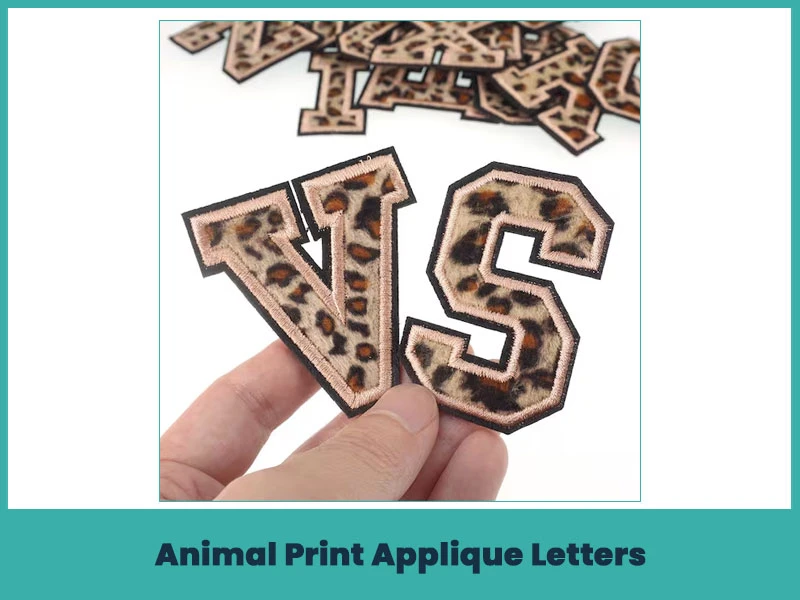
Create a wild and stylish statement with animal print appliqué letters. Leopard, zebra, and snake prints work well to infuse a touch of the exotic into your fabric creations. These bold and eye-catching letters are perfect for adding a touch of the jungle to quilts, bags, or clothing items. Experiment with different textures and colors to achieve a striking result.
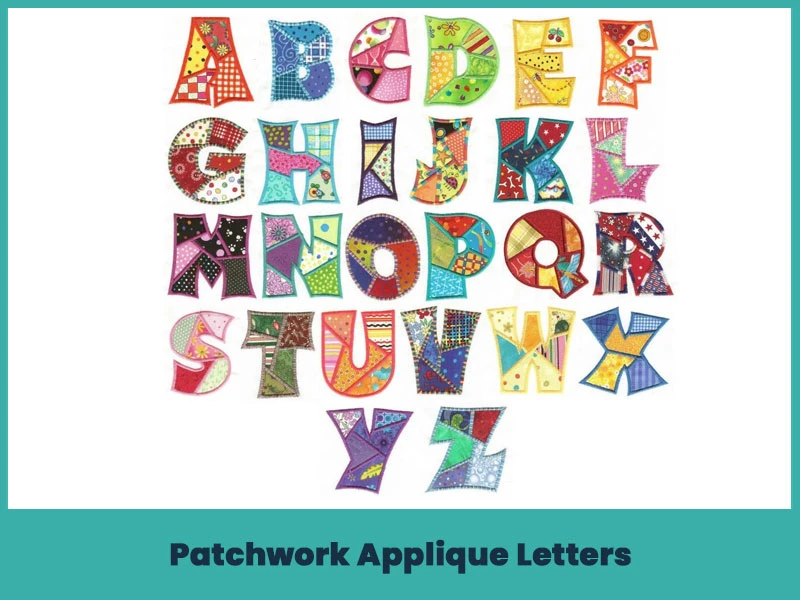
Patchwork appliqué letters offer a charming and homespun aesthetic. Use a variety of fabrics in complementary colors and patterns to piece together each letter. This technique is particularly effective for creating a cozy, quilt-like appearance on cushions, blankets, or wall hangings. The unique combination of embroidery fabrics adds visual interest and a touch of nostalgia to your projects.
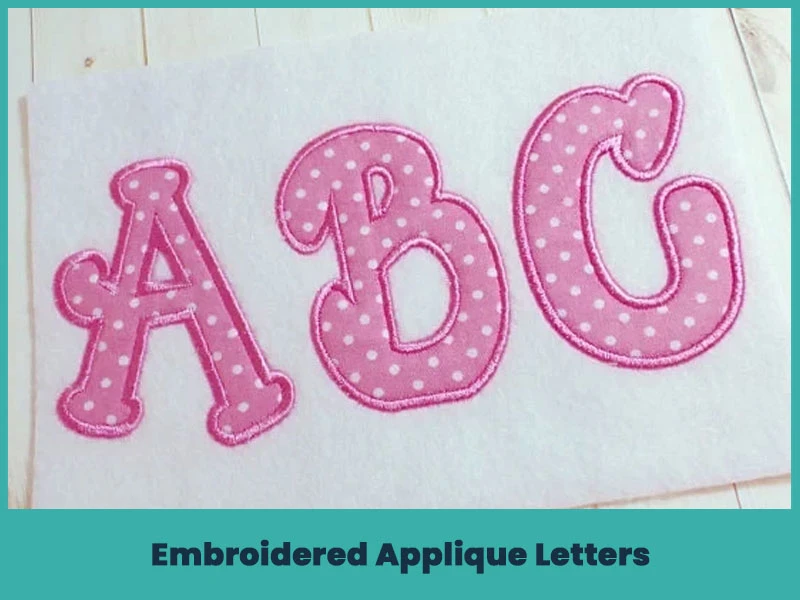
Enhance your appliqué letters with intricate embroidery stitches. Outline the edges of the letters or fill them in with decorative patterns. Embroidered appliqué letters add a delicate and artisanal touch to your projects. Making them stand out with a high level of craftsmanship. Experiment with different thread colors and stitch types to achieve the desired effect.
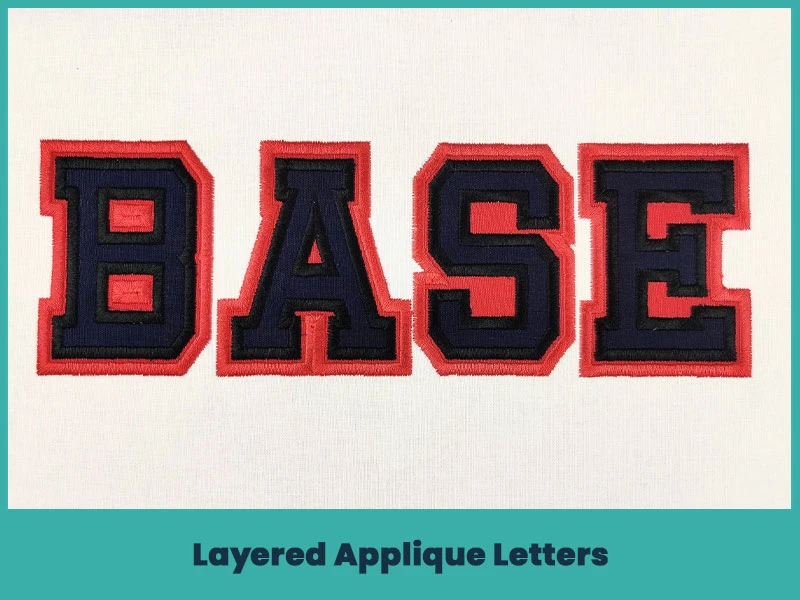
Give your applique letters depth and dimension by layering different fabrics or materials. Use contrasting colors or textures to create a visually interesting effect. This technique works well for both simple and complex fonts. Allowing you to experiment with various combinations to achieve a layered and three-dimensional appearance. The result is a dynamic and tactile design that captures attention.
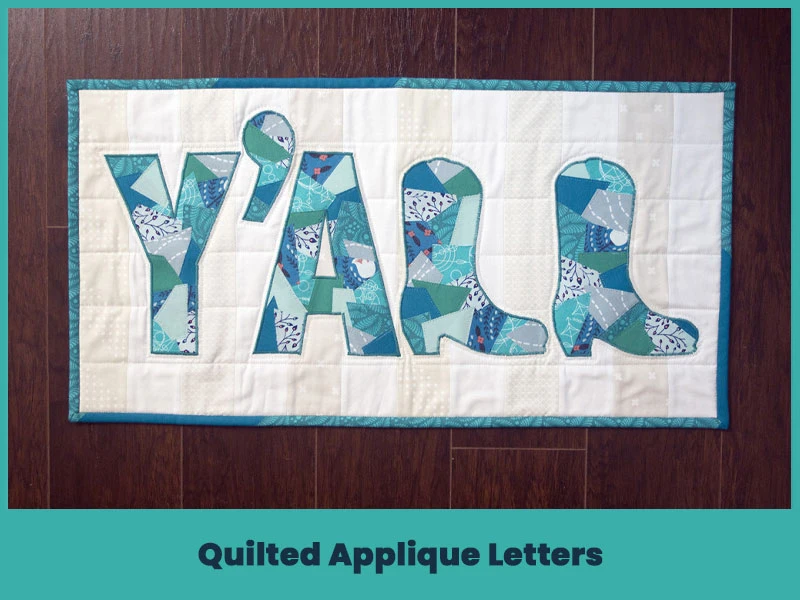
Imitate the look of quilting within your appliqué letters by adding stitched lines or patterns. Quilted appliqué letters bring a cozy and comforting vibe to your projects. This technique is particularly effective for creating textural interest on blankets, cushions, or any fabric surface. Experiment with different quilting styles, such as stippling or geometric patterns, to enhance the overall design.
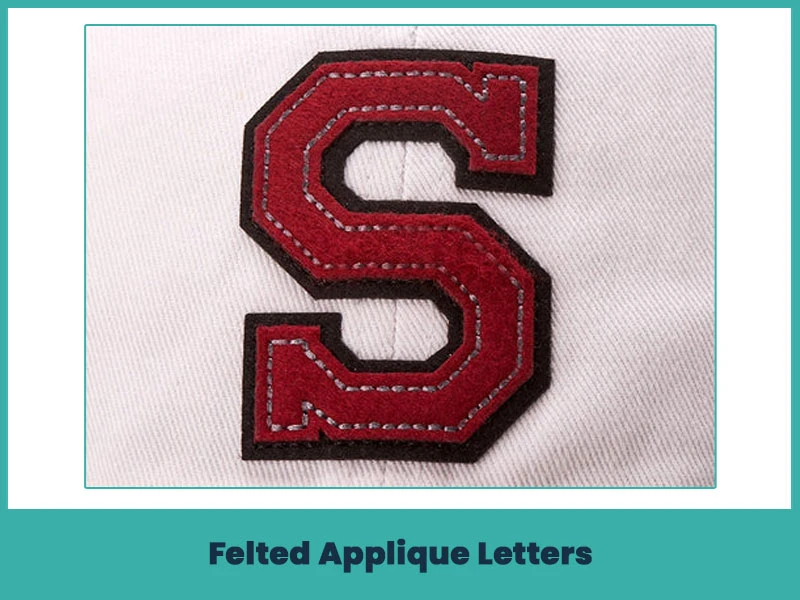
Achieve a soft and tactile feel with felted appliqué letters. Use felt fabric in various colors to create letters that are both visually appealing and touchable. Felted appliqué is a versatile choice, suitable for a wide range of projects. Including children's clothing, accessories, or decorative items. Combine different shades and textures of felt to add depth and interest to your exceptional designs.
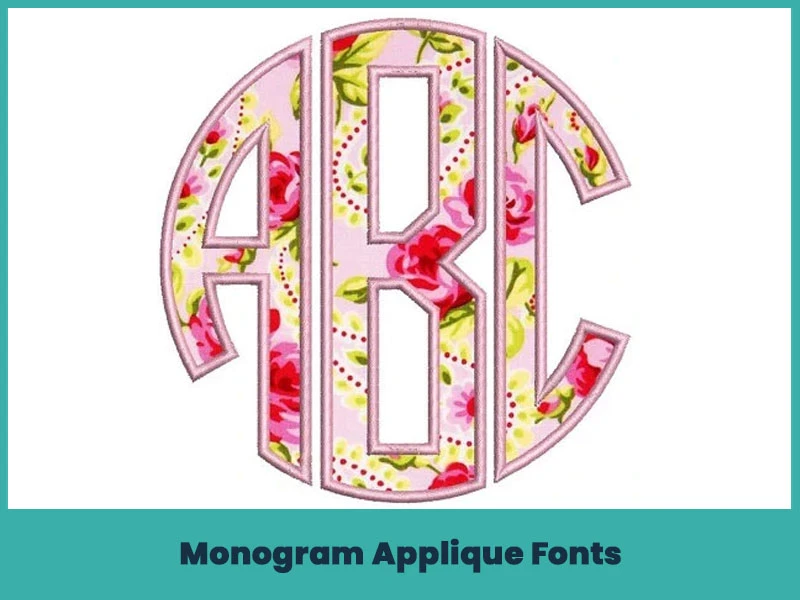
Personalize your projects with monogram applique fonts. Create custom monograms using a combination of script and serif fonts. Adding a sophisticated and individualized touch to your creations. Monogram appliqué fonts are perfect for personal items like towels, linens, or clothing. Allowing you to make a statement with your unique initials in a stylish way.
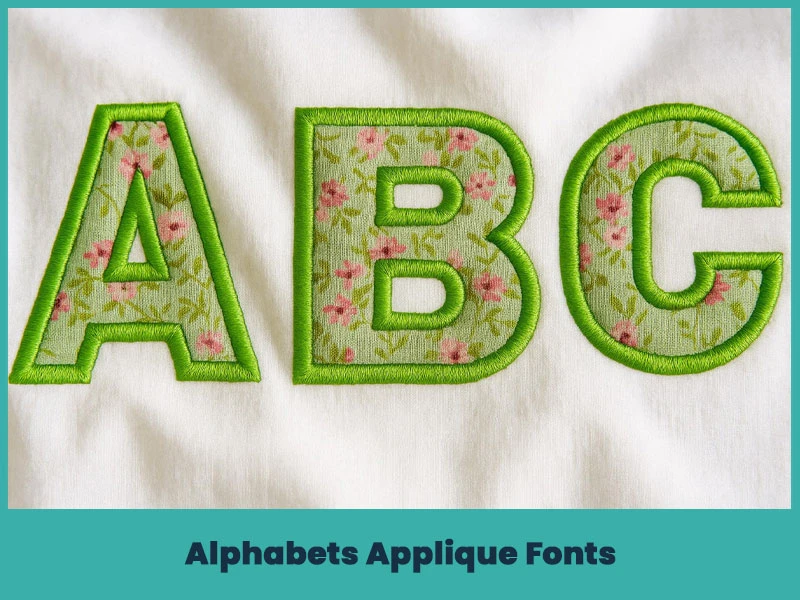
Explore a variety of alphabets in your appliqué fonts to achieve diverse looks. Combine uppercase and lowercase letters in different styles for a playful or eclectic design. Alphabets appliqué fonts offer flexibility, allowing you to adapt the style to suit the overall theme of your project. Whether it's modern and bold or vintage and whimsical.
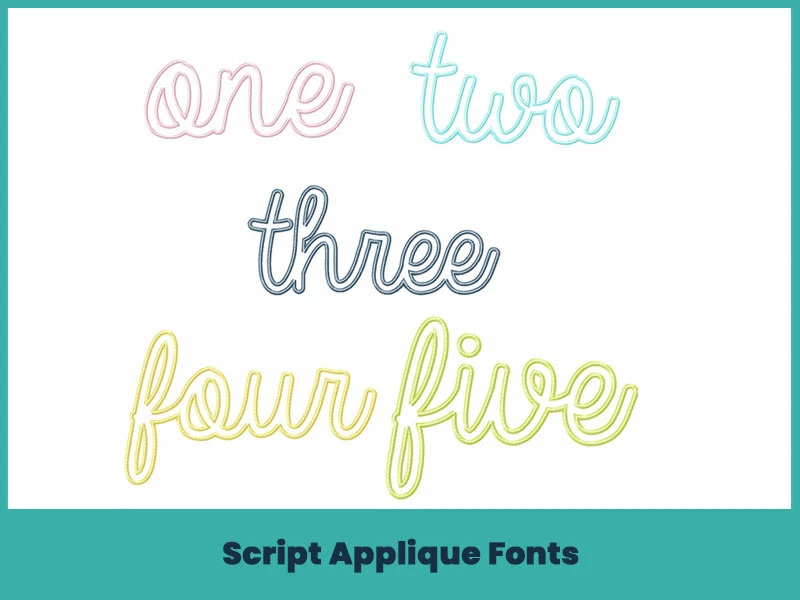
Bring elegance and fluidity to your appliqué projects with script fonts. Script appliqué fonts emulate cursive handwriting, adding a touch of sophistication to your designs. Ideal for projects that require a more formal or romantic feel. Such as wedding decorations, and script appliqué fonts that offer a graceful and timeless aesthetic.
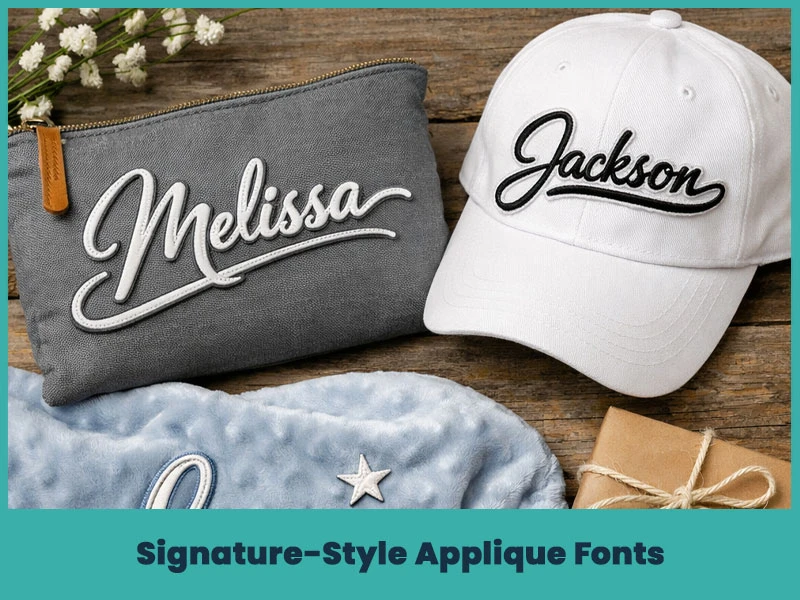
Create a distinct and personalized touch with signature-style appliqué fonts. Mimic the look of a handwritten signature, incorporating unique flourishes and details. Signature-style appliqué fonts are perfect for adding a personal touch to special gifts or projects. Where you want to leave your mark stylishly and memorably.